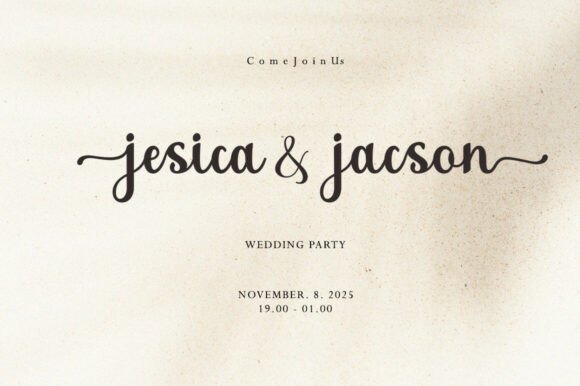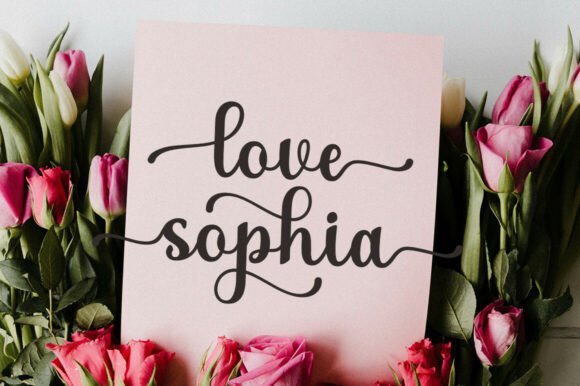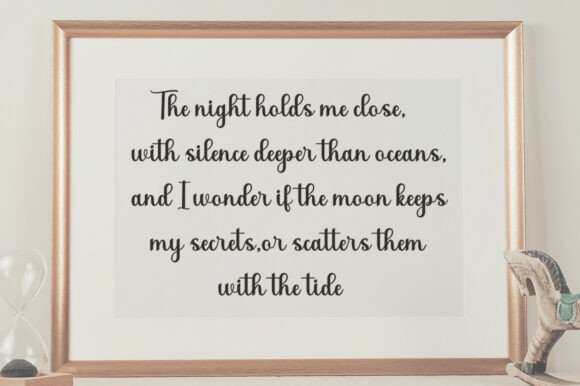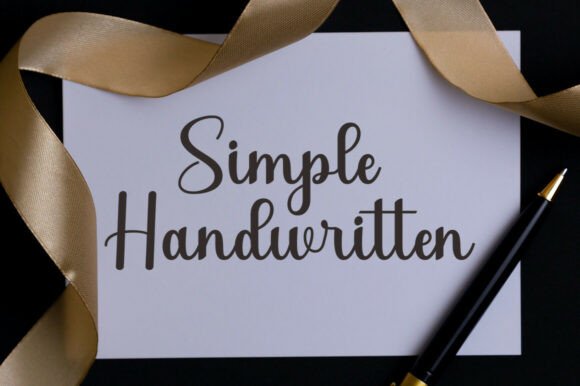
Ayla Font: Elevate Your Designs with Elegance and Sophistication
Are you a designer or crafter looking for a font that exudes elegance and sophistication? Look no further than Ayla Font, a stunning handwritten font that is perfect for a variety of design projects. In this article, we’ll dive into the features and benefits of Ayla Font, and explore how it can elevate your designs to the next level.
What is Ayla Font?
Ayla Font is a stylish and incredibly elegant handwritten font that is perfect for adding a touch of sophistication to your designs. With its flowing lines and delicate curves, Ayla Font is ideal for designs that require a personal and elegant touch. Whether you’re creating wedding invitations, thank you cards, quotes, greeting cards, logos, business cards, or any other design that needs a handwritten touch, Ayla Font is the perfect choice.
Key Features of Ayla Font
Ayla Font comes with a range of features that make it a versatile and user-friendly font. Some of its key features include:
- PUA Encoding: Ayla Font is PUA encoded, which means you can access all of the glyphs and alternates with ease. This makes it simple to customize your designs and add a personal touch.
- Handwritten Style: Ayla Font has a beautiful handwritten style that is perfect for adding a personal touch to your designs.
- Elegant and Sophisticated: Ayla Font is incredibly elegant and sophisticated, making it perfect for designs that require a high level of sophistication.
Uses for Ayla Font
Ayla Font is a versatile font that can be used for a wide range of design projects. Some of the most popular uses for Ayla Font include:
- Wedding Invitations: Ayla Font is perfect for wedding invitations, adding a touch of elegance and sophistication to your designs.
- Thank You Cards: Ayla Font is also great for thank you cards, allowing you to add a personal touch to your designs.
- Quotes: Ayla Font is ideal for quotes, adding a touch of elegance and sophistication to your designs.
- Greeting Cards: Ayla Font is perfect for greeting cards, allowing you to add a personal touch to your designs.
- Logos: Ayla Font can also be used for logos, adding a touch of elegance and sophistication to your brand.
- Business Cards: Ayla Font is great for business cards, allowing you to add a personal touch to your designs.
Benefits of Using Ayla Font
There are many benefits to using Ayla Font in your designs. Some of the most significant benefits include:
- Elegance and Sophistication: Ayla Font adds a touch of elegance and sophistication to your designs, making them stand out from the crowd.
- Versatility: Ayla Font is a versatile font that can be used for a wide range of design projects.
- Easy to Use: Ayla Font is easy to use, with PUA encoding making it simple to access all of the glyphs and alternates.
- Customizable: Ayla Font is highly customizable, allowing you to add a personal touch to your designs.
Tips for Using Ayla Font
Here are a few tips for using Ayla Font in your designs:
- Pair with Other Fonts: Ayla Font pairs well with other fonts, so don’t be afraid to experiment with different combinations.
- Use for Headings and Titles: Ayla Font is perfect for headings and titles, adding a touch of elegance and sophistication to your designs.
- Add a Personal Touch: Ayla Font is all about adding a personal touch to your designs, so don’t be afraid to get creative and add your own unique flair.
| Font Name | Ayla Font |
| Author | Sumi Creative |
In conclusion, Ayla Font is a stunning handwritten font that is perfect for designers and crafters looking to add a touch of elegance and sophistication to their designs. With its PUA encoding, elegant style, and versatility, Ayla Font is a must-have font for any designer or crafter. Whether you’re creating wedding invitations, thank you cards, quotes, greeting cards, logos, business cards, or any other design that needs a handwritten touch, Ayla Font is the perfect choice.